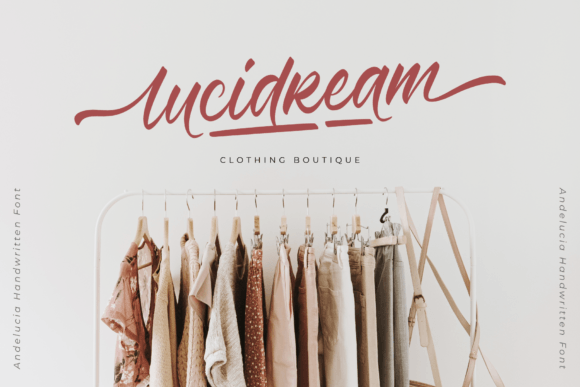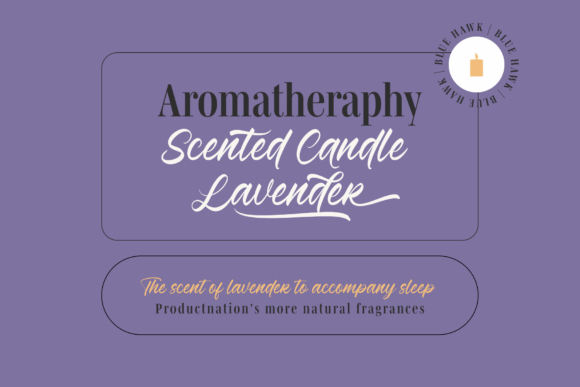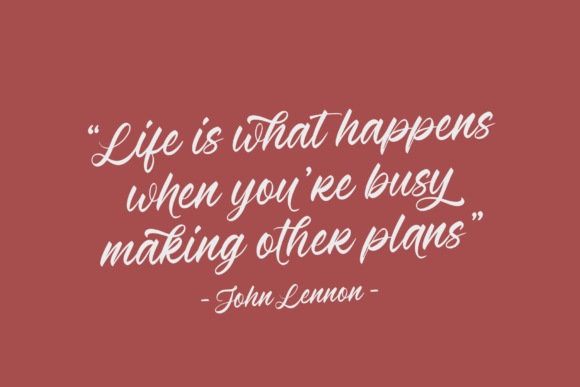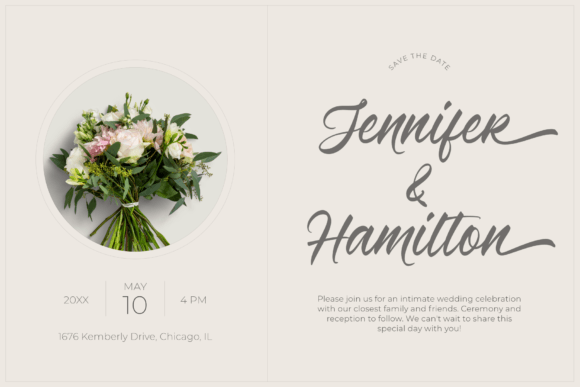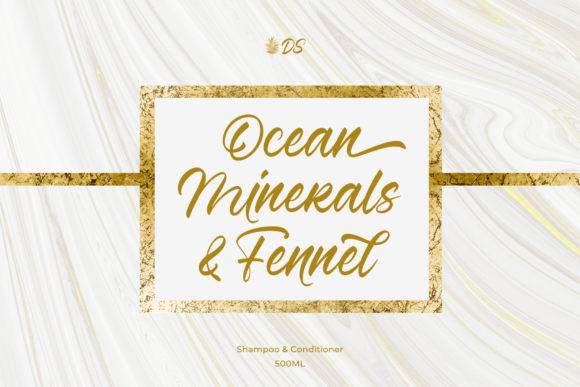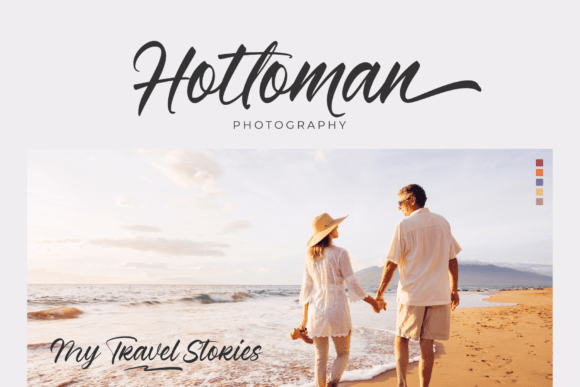
Where Art Meets Design: Unleashing the Elegance of Andelucia Font
You know that feeling when you’re brainstorming ideas for a new project, and suddenly a spark of creativity hits you? That’s what happens when you fall in love with the Andelucia Font. This stunning handwritten typeface is more than just a font – it’s a way to add a personal touch to your designs and make them truly unforgettable.
Whether you’re creating a wedding invitation, a brand identity, or social media visuals, the Andelucia Font is the perfect companion to help you bring your ideas to life. Its elegant script flows effortlessly, infusing every design with a stylish sophistication and captivating charm. As a designer, you know how valuable it is to have a font that can elevate your work and make it stand out from the crowd.
- Unique Characteristics: Andelucia Font features a unique blend of modern and traditional design elements, with a focus on readability and versatility
Andelucia Font Review
As a designer, I recently had the chance to work with the Andelucia font, and here’s my honest take on it.
- The Andelucia font has a unique and elegant aesthetic that’s perfect for creating a sophisticated and high-end feel.
- The font’s curves and lines work well together to create a sense of balance and harmony.
- It’s highly legible, even at smaller font sizes, making it a great choice for body text.
- The font supports a wide range of languages, including Latin, Cyrillic, and Greek.
- The Andelucia font can feel a bit too ornate for some projects, which may make it difficult to read at a glance.
- The font’s weight range is limited, which may not be suitable for projects that require a wide range of font weights.
- Some users may find the font’s style too generic or overused.
Overall, the Andelucia font is a solid choice for projects that require a touch of elegance and sophistication. While it may have some limitations, its unique aesthetic and high legibility make it a great addition to any designer’s toolkit.
- Use it for titles and headings to add a touch of elegance and sophistication.
- Pair it with a serif font for body text to create a visually appealing contrast.
The Andalusia Font is perfect for:
- Brand identity and logos.
- Editorial and
Great Vibes is a modern calligraphic script font. It is perfect for creating a warm and friendly atmosphere in designs, such as invitations, event posters, and branding materials. Great Vibes has a similar elegance and sophistication as Andelucia Font, but with a more casual and approachable feel.
Comparison: While Andelucia Font has a more refined and luxurious look, Great Vibes has a more relaxed and free-flowing style.
Carolyna Pro is a elegant and sophisticated script font. It is ideal for creating high-end designs, such as luxury branding, fashion magazines, and fine art prints. Carolyna Pro has a similar level of sophistication as Andelucia Font, but with a more refined and classic feel.
Comparison: While Andelucia Font has a more feminine and delicate look, Carolyna Pro has a more masculine and elegant feel.
Alex Brush is a beautiful and elegant script font. It is perfect for creating designs that require a touch of sophistication and elegance, such as wedding invitations, luxury branding, and fine art prints. Alex Brush has a similar level of sophistication as Andelucia Font, but with a more classic and timeless feel.
Comparison: While Andelucia Font has a more modern and refined look, Alex Brush has a more traditional and elegant feel.
Playfair Display is a luxurious and elegant script font. It is ideal for creating high-end designs, such as luxury branding, fashion magazines, and fine art prints. Playfair Display has a more dramatic and luxurious feel compared to Andelucia Font, with a more ornate
Q: Are there any font weight or style limitations in the Andelucia Font?
The Andelucia Font includes a range of font weights, from Light to Bold, and several font styles, including Regular, Italic, and Bold Italic. However, please note that some font weights and styles may not be available in all formats, and some applications may not support all font weights and styles.